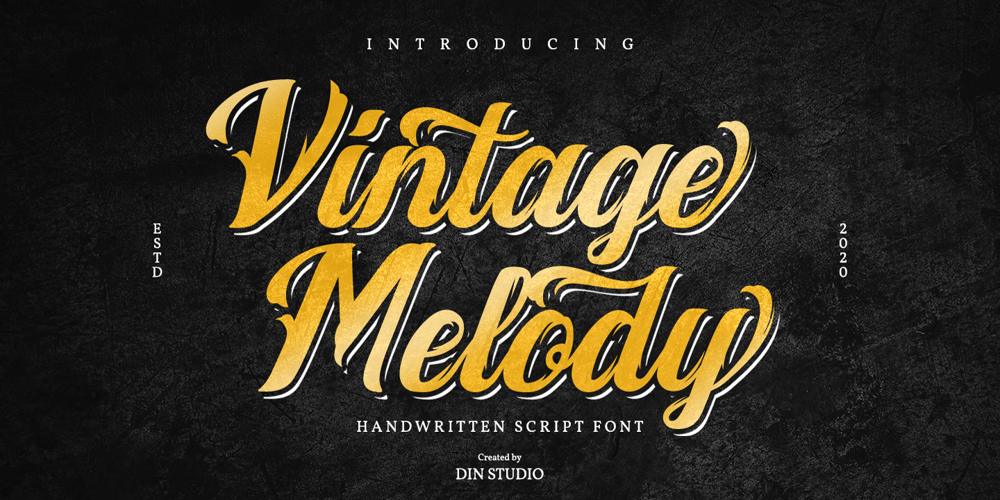
Vintage Melody
Vintage Melody Font Family was designed by Donis Miftahudin and published by Din Studio. Vintage Melody contains 1 styles and family package options. Vintage Melody is a elegant handwritten font. It brings a beautiful and attractive typeface. Made for any professional project branding. It is the best for logos, branding, wedding and quotes. Features: Stylistic Set Standard Ligatures Swashes Multilingual Support PUA Encoded Numerals and Punctuation Thank you for downloading premium fonts from Din Studio